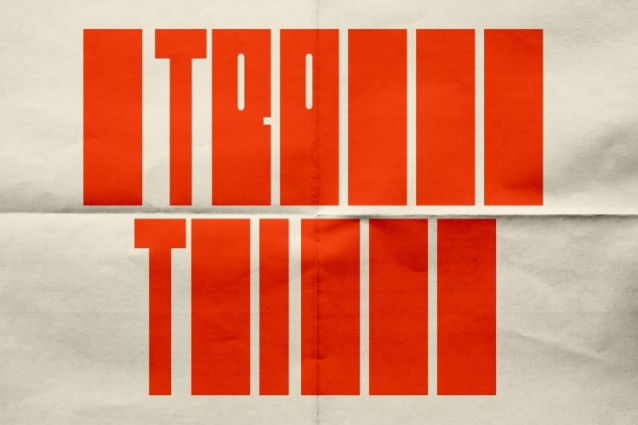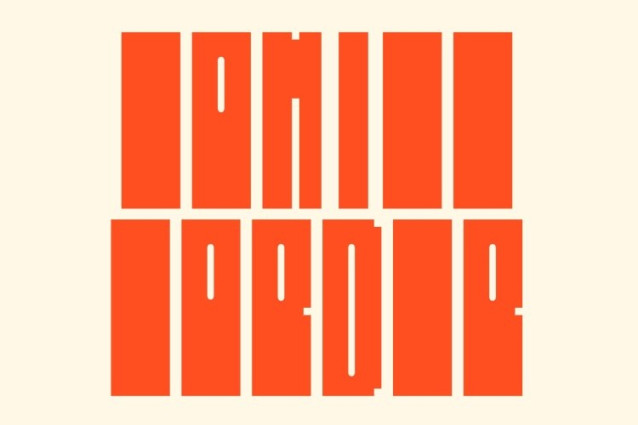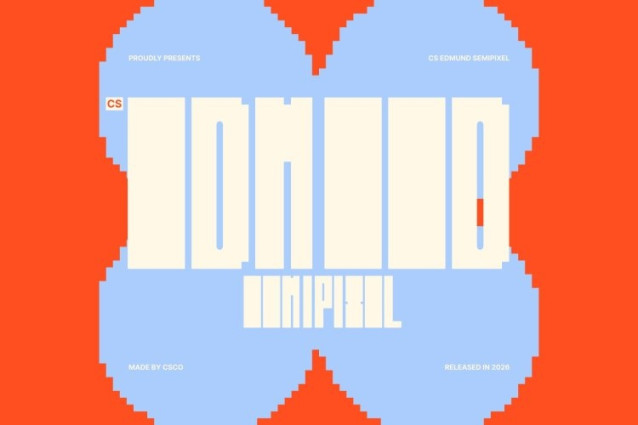
CS Edmund Semipixel – Condensed Sans Serif Display Font: Where Industrial Geometry Meets Smooth Digital Precision
Streamlined Industrial Forms with Contemporary Strength
This is a condensed sans serif display font crafted to deliver a sleek, modern, and industrial visual identity. Its streamlined proportions and bold geometric structure create a strong presence that feels contemporary, functional, and visually confident. Every character is designed to maximize impact and clarity, making the font perfect for modern display compositions and high-energy creative layouts.
Semipixel Style with Smooth Futuristic Geometry
This font combines pixel-inspired square forms with modern curves and refined details. Unlike traditional rigid pixel fonts, its smooth construction softens the geometric edges, creating a cleaner and more contemporary digital appearance. This fusion of retro pixel influence and sleek industrial typography gives the font a futuristic yet highly versatile personality.